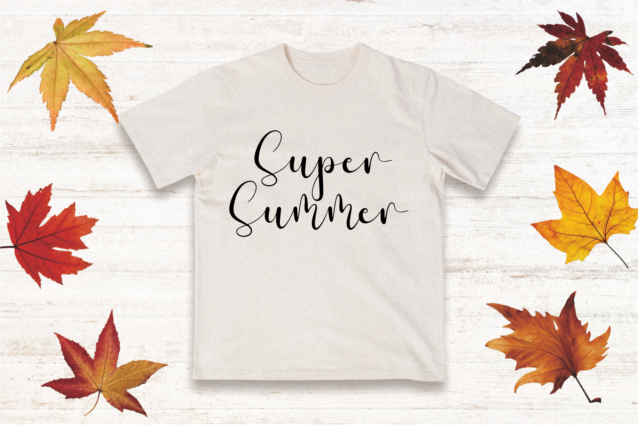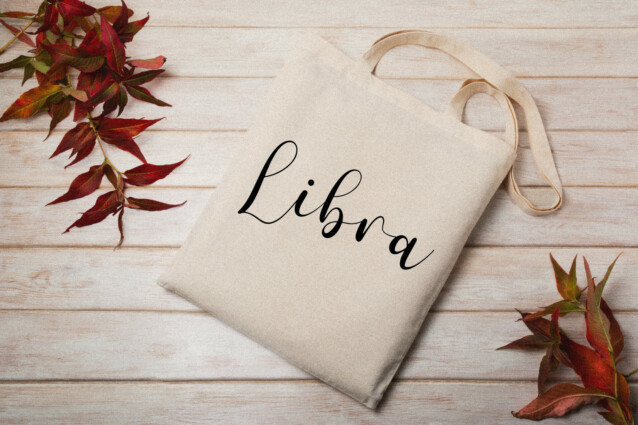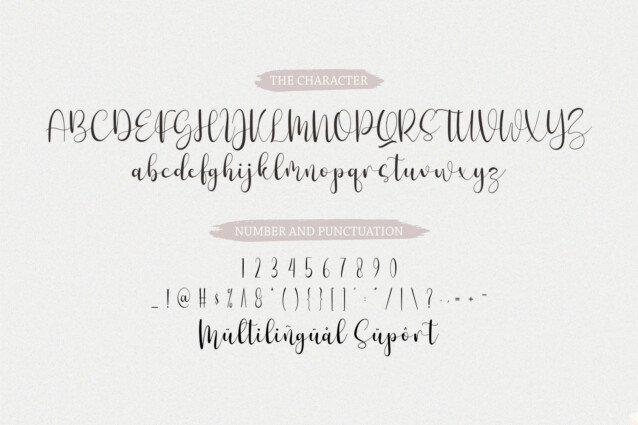
Fivety Miles Script Font
Fivety Miles Script Font is a flowing handwritten font, described by an elegant touch, perfect for your favorite projects. Fall in love with its incredibly distinct and timeless style and use it to create spectacular designs!